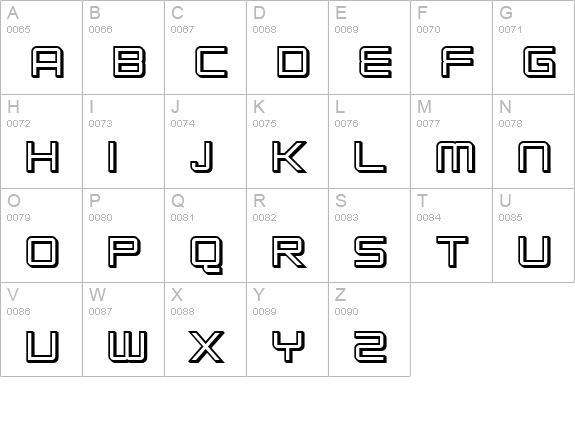
SF Chromium 24 Bold Font Details
SF Chromium 24 Bold is a strong, high-contrast variant in the SF typeface family \xE2\x80\x94 well suited to headlines, attention-grabbing titles, and strong calls-to-action.
SF Chromium 24 Bold is a modern and bold font that exudes confidence and strength. With its clean lines and sharp edges, this font is perfect for making a bold statement. Whether you're designing a logo, creating a poster, or crafting a headline, SF Chromium 24 Bold will grab attention and leave a lasting impression. This font is not only visually striking but also incredibly versatile. Its bold weight ensures high legibility, making it suitable for both large and small sizes. SF Chromium 24 Bold is perfect for any project that demands a strong and impactful font. One of the best features of SF Chromium 24 Bold is that it is available for free download at FontsMarket.com. Yes, you read that right – this remarkable font can be yours without spending a dime. So, if you're looking to add a touch of boldness and sophistication to your designs, SF Chromium 24 Bold is your go-to font. Download SF Chromium 24 Bold today from FontsMarket.com and unleash the power of this striking font in your next creative endeavor. Don't miss out on this incredible opportunity to elevate your designs with a free and remarkable font.